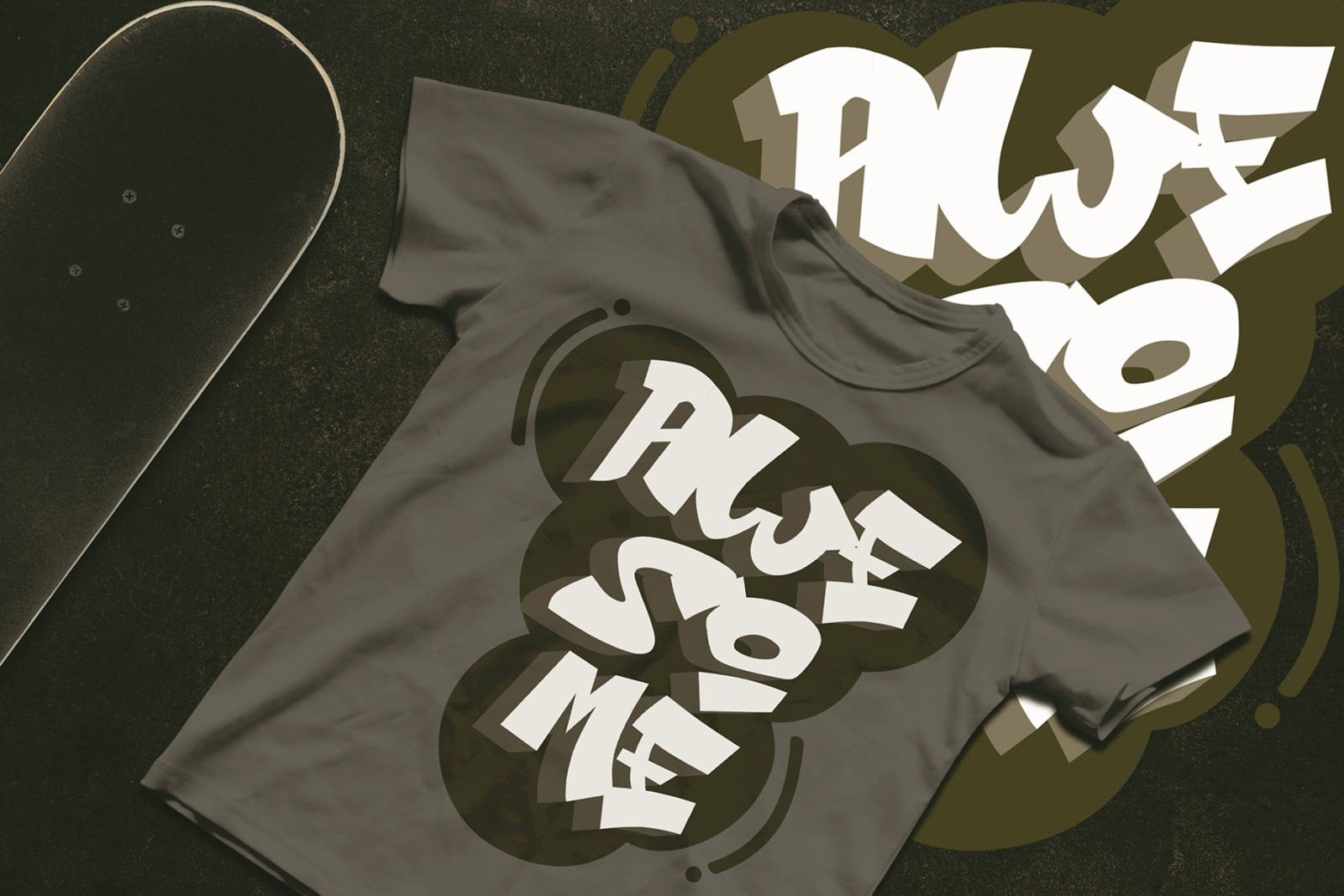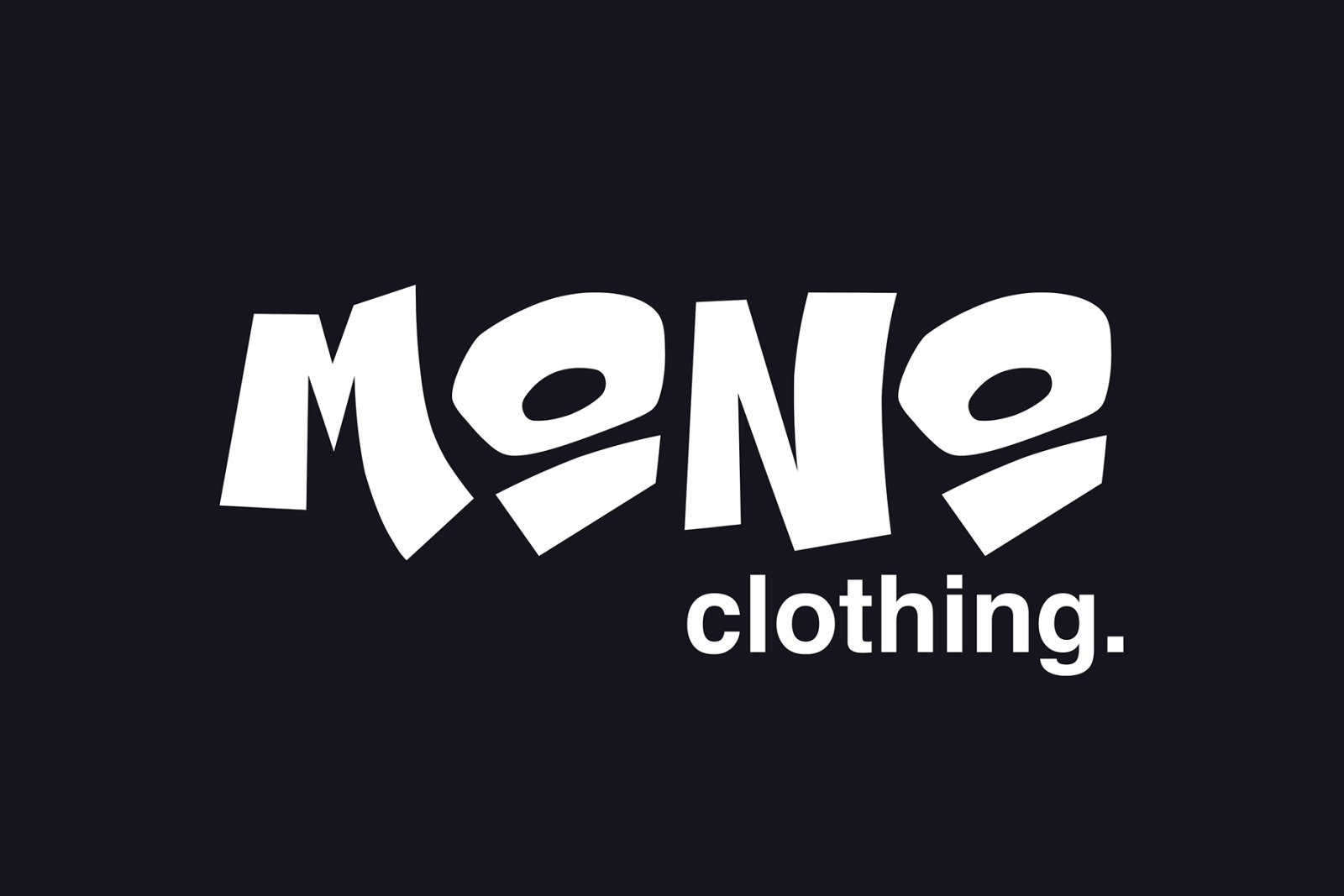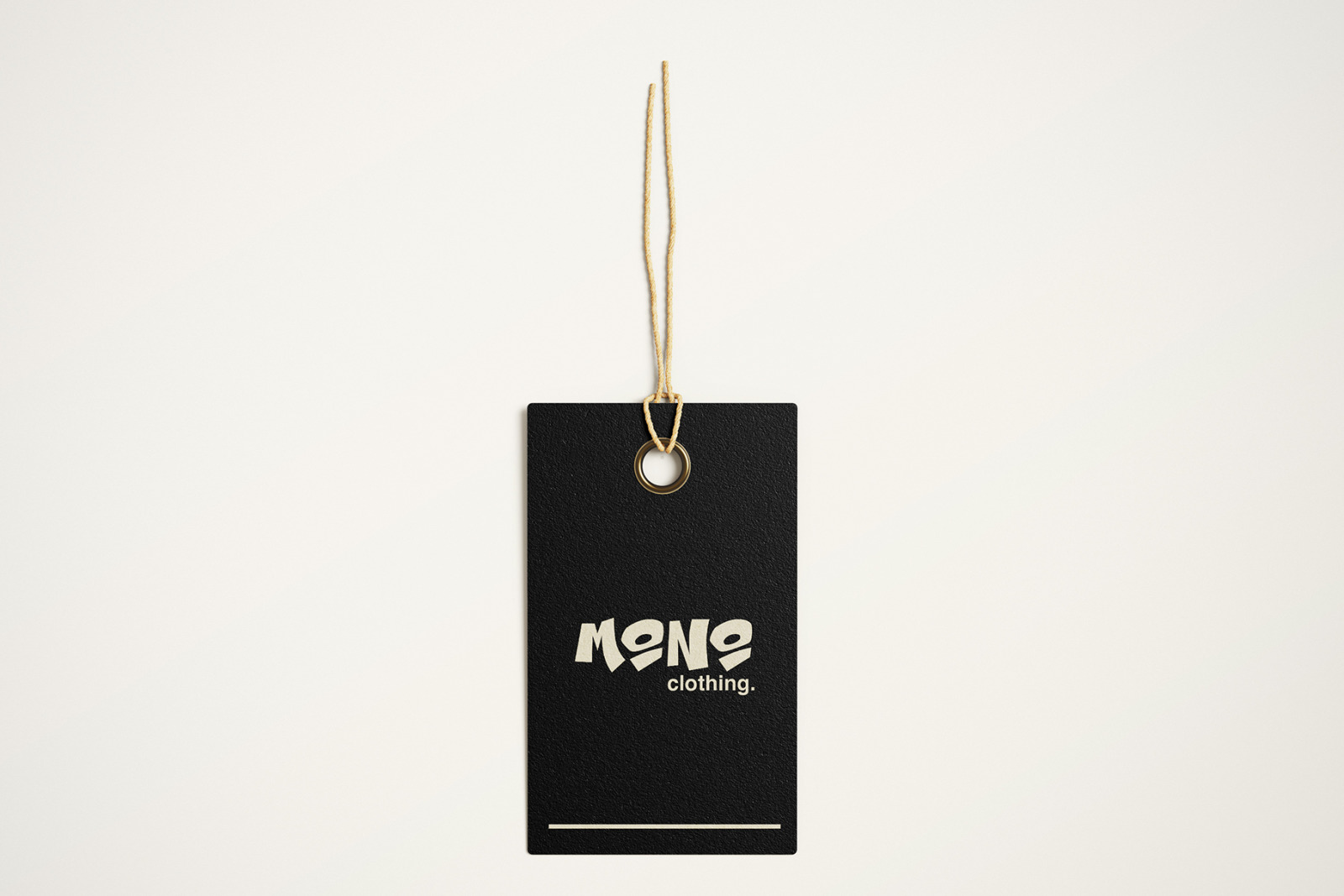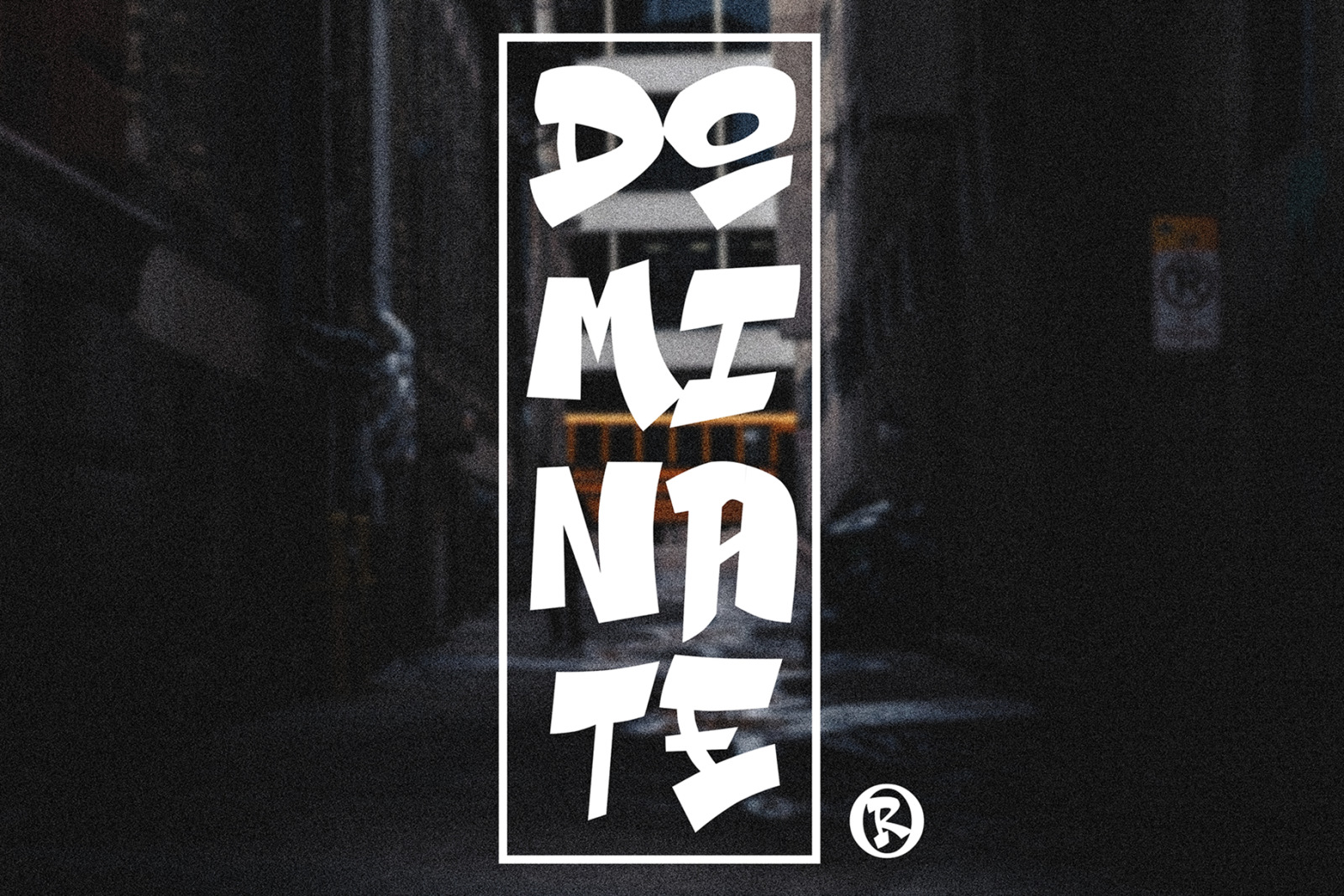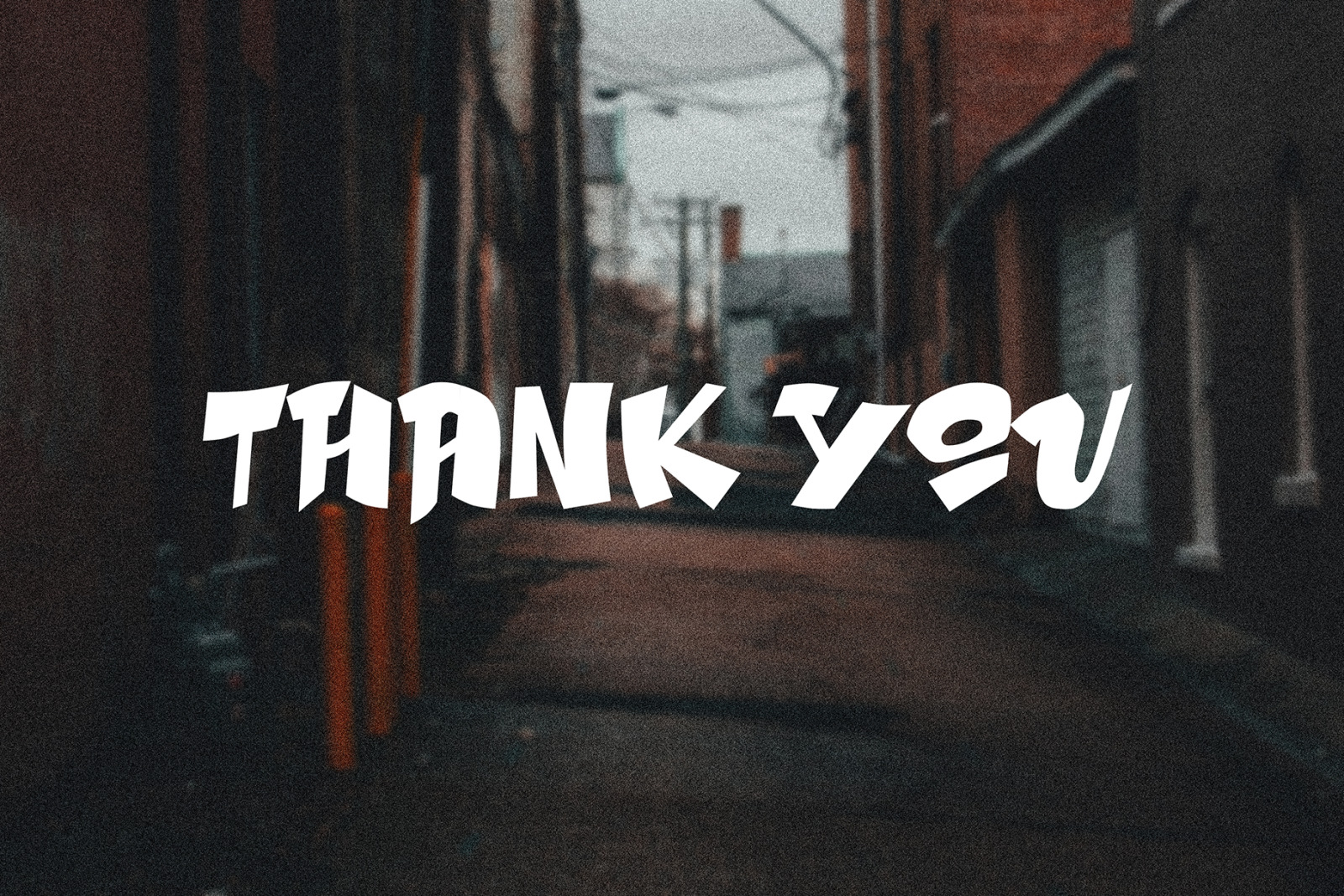
Vope Dome Font
Vope Dome is an incredibly unique and chunky lettered display font with graffiti basic feel, its suitable for logotype, design grafis, e-sport, apparell, wall art, etc. Add this font to your favorite creative ideas and notice how it makes them come alive!